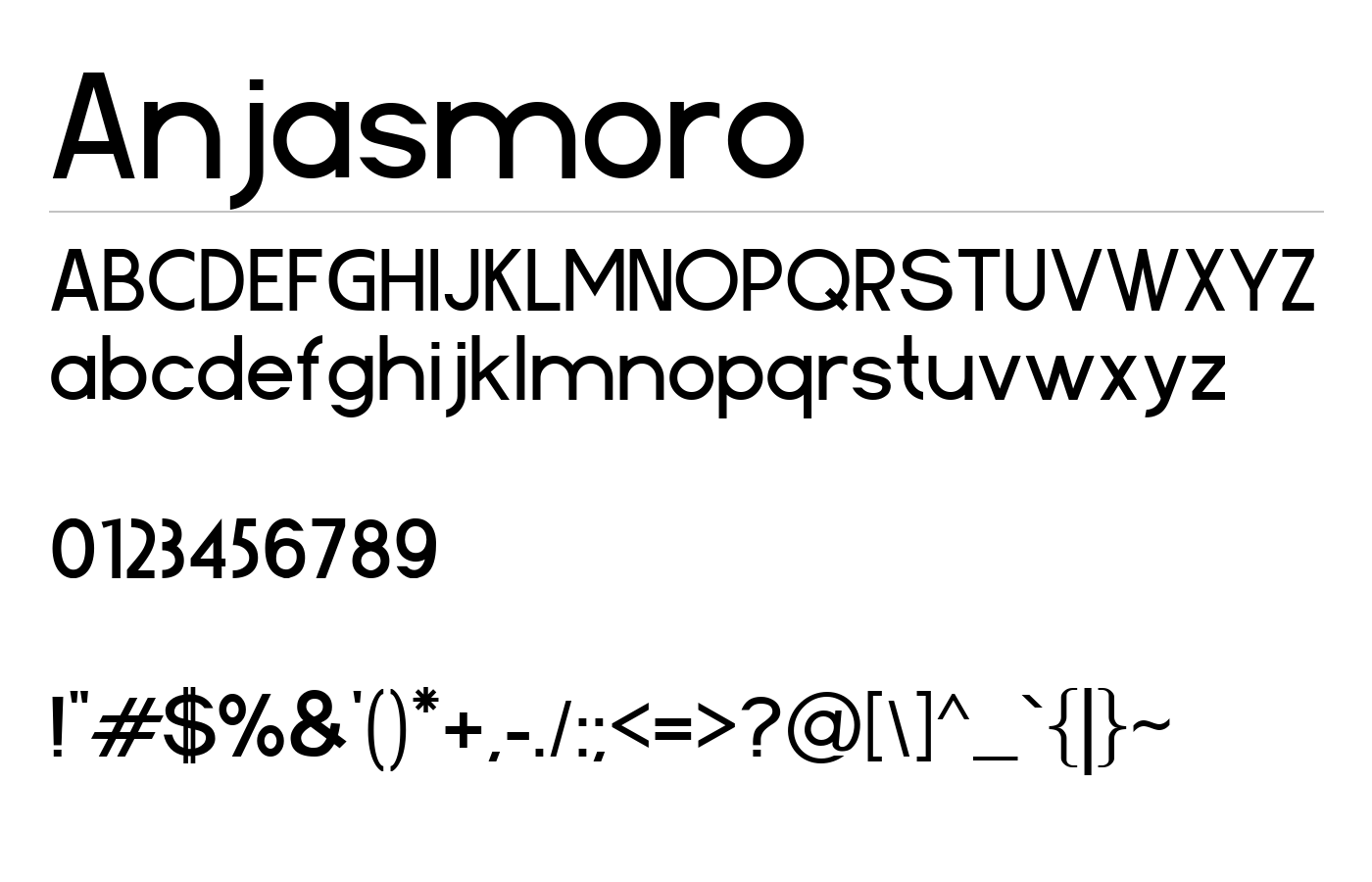
Anjasmoro is a sleek, modern sans serif font characterized by its clean lines and balanced proportions, making it highly readable and versatile. Its medium weight and open letterforms give it a friendly yet professional feel, suitable for elegant branding, editorial design, and clear digital interfaces. This font works well for headlines, logos, and body text where clarity and subtle sophistication are desired.
Anjasmoro Font
About Anjasmoro Font